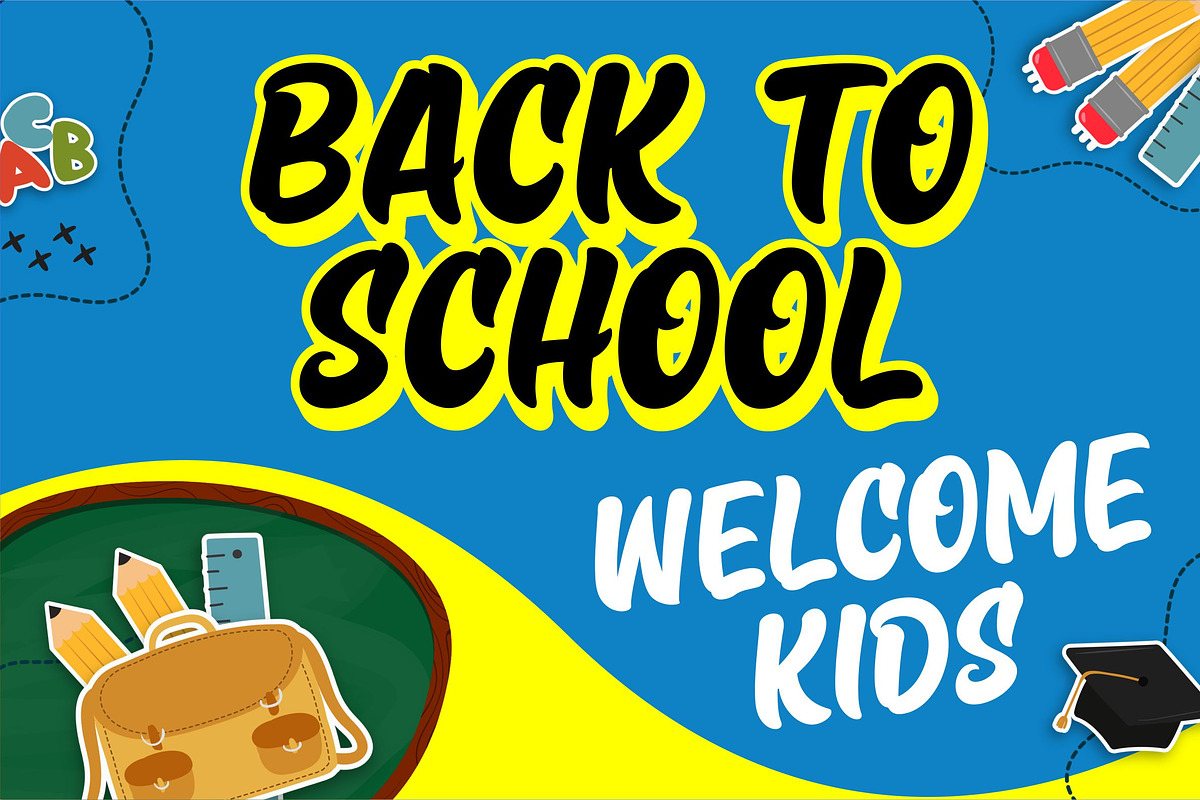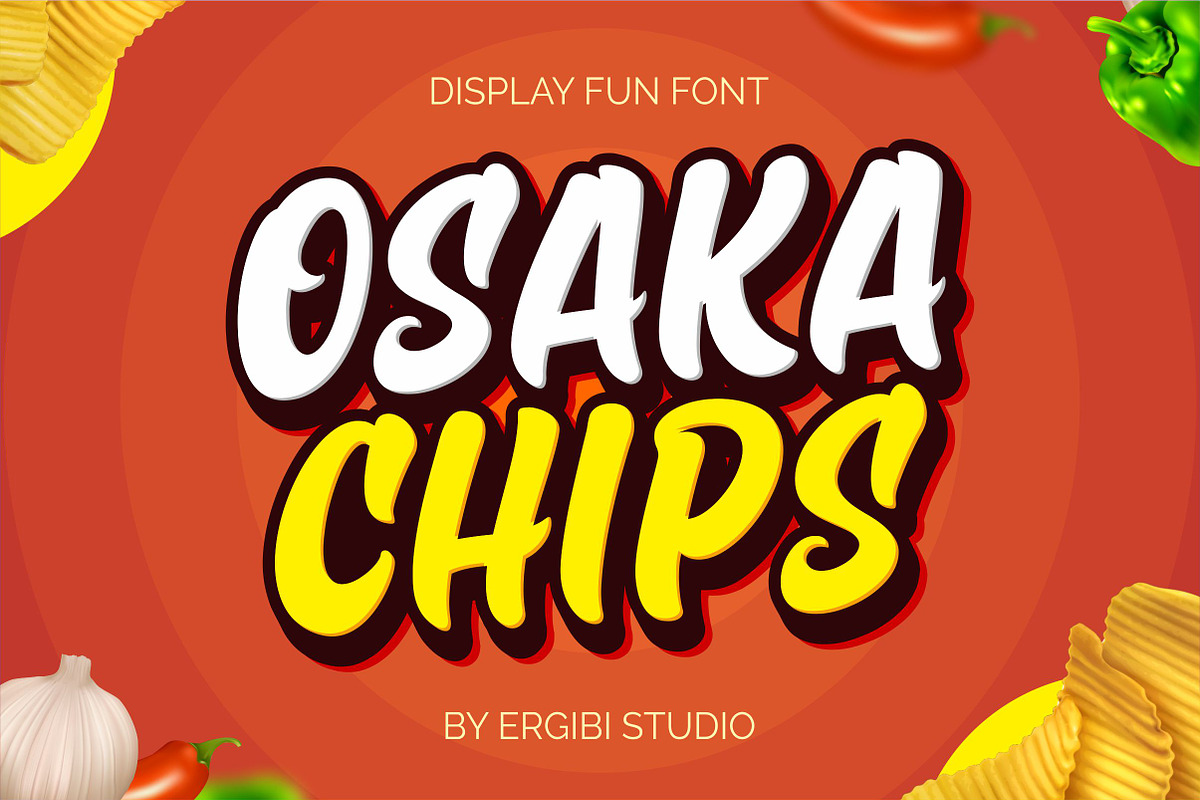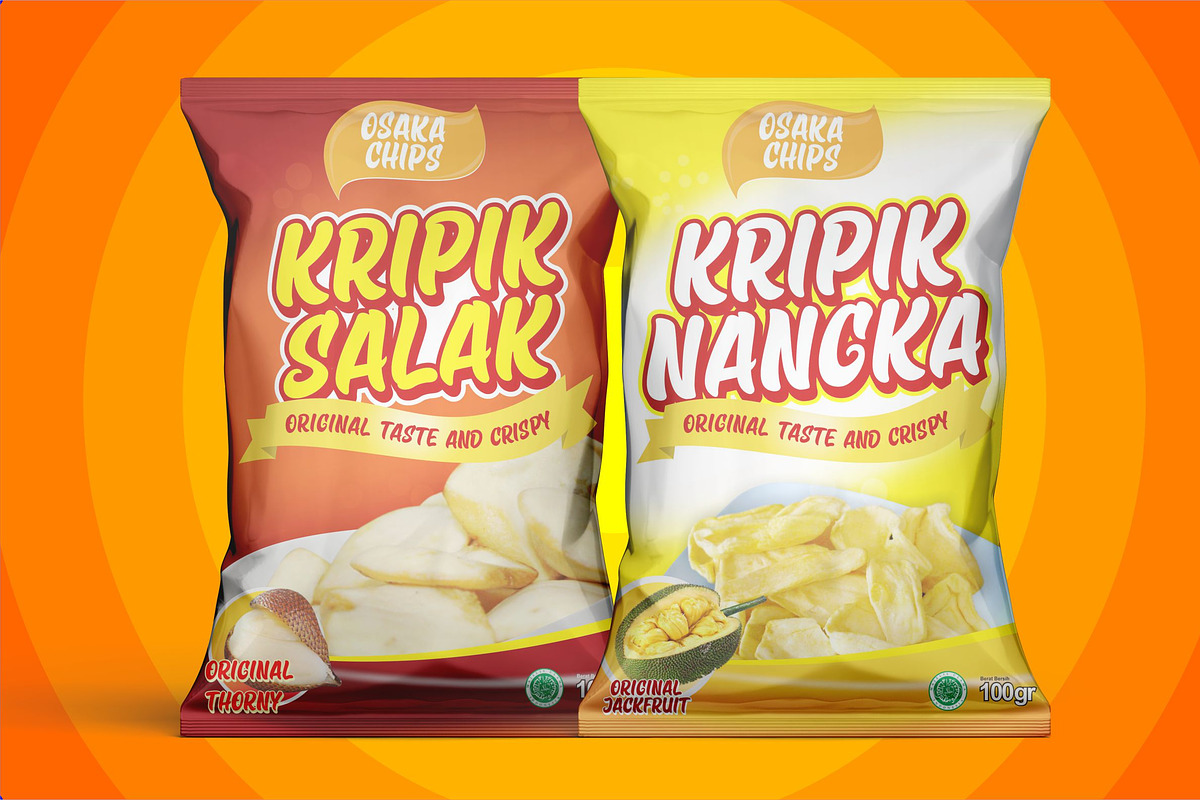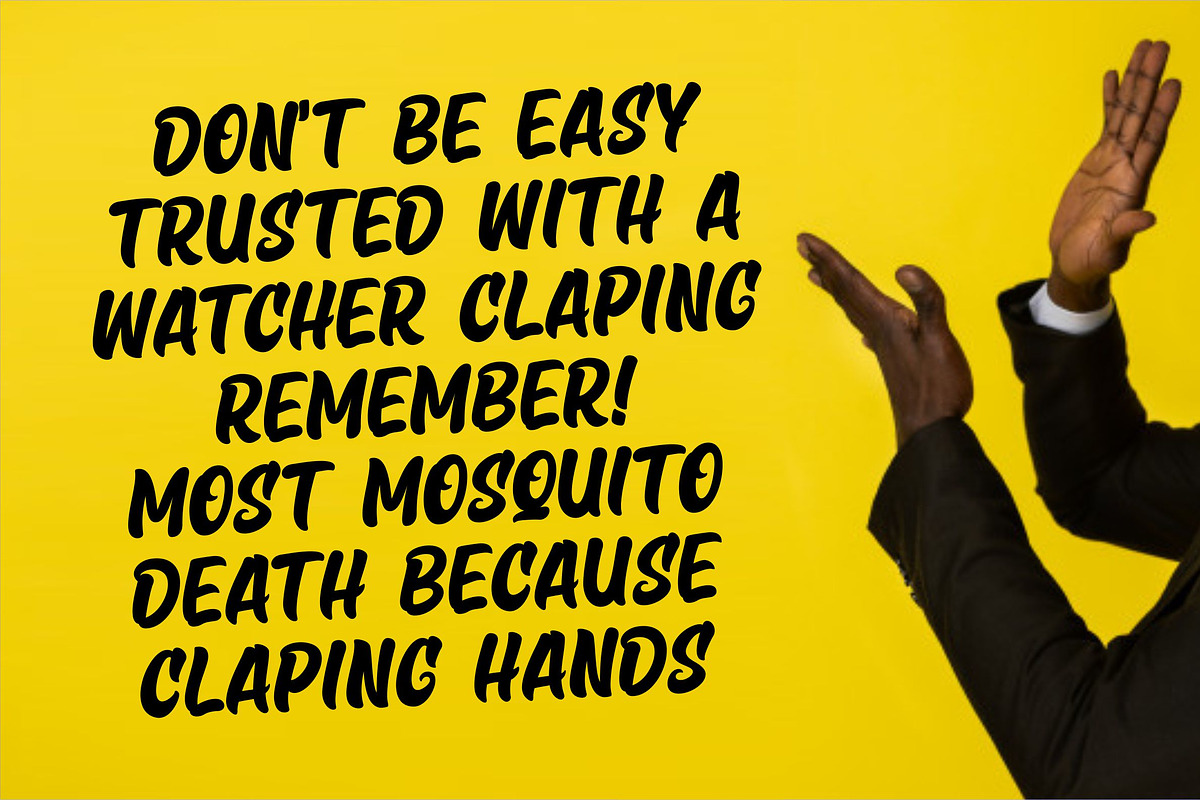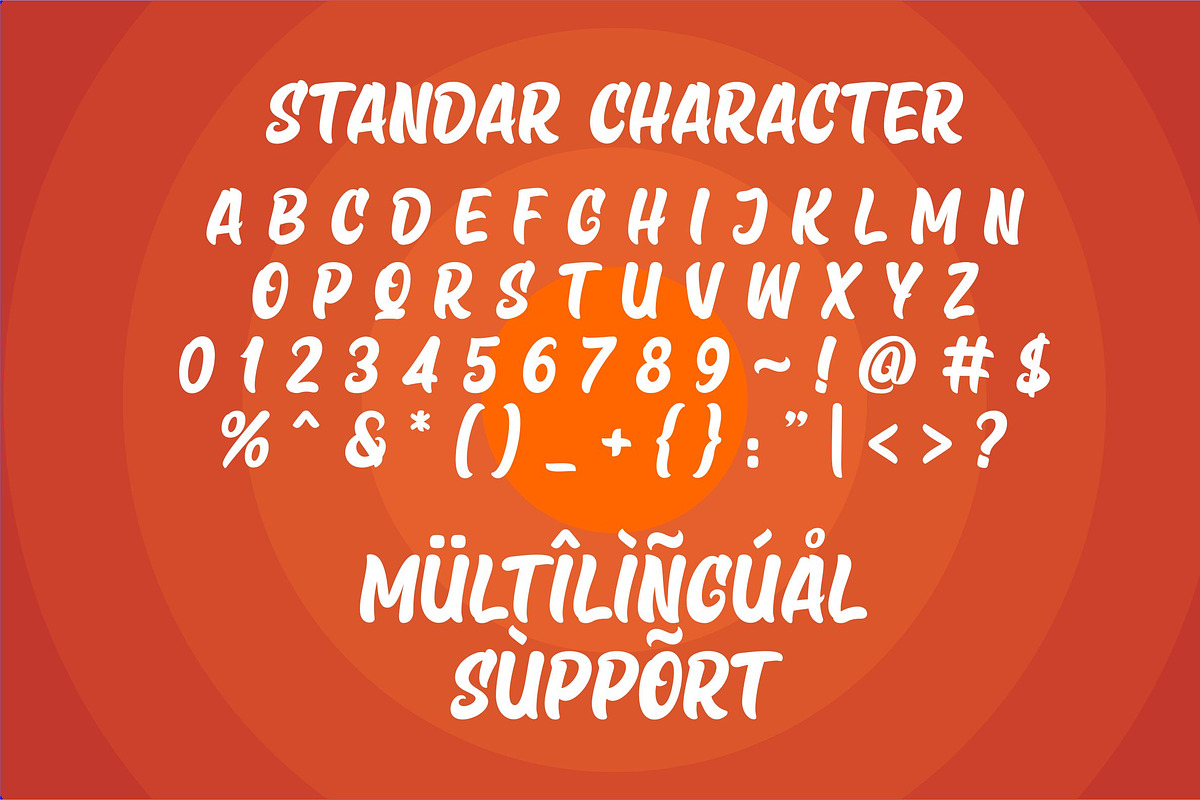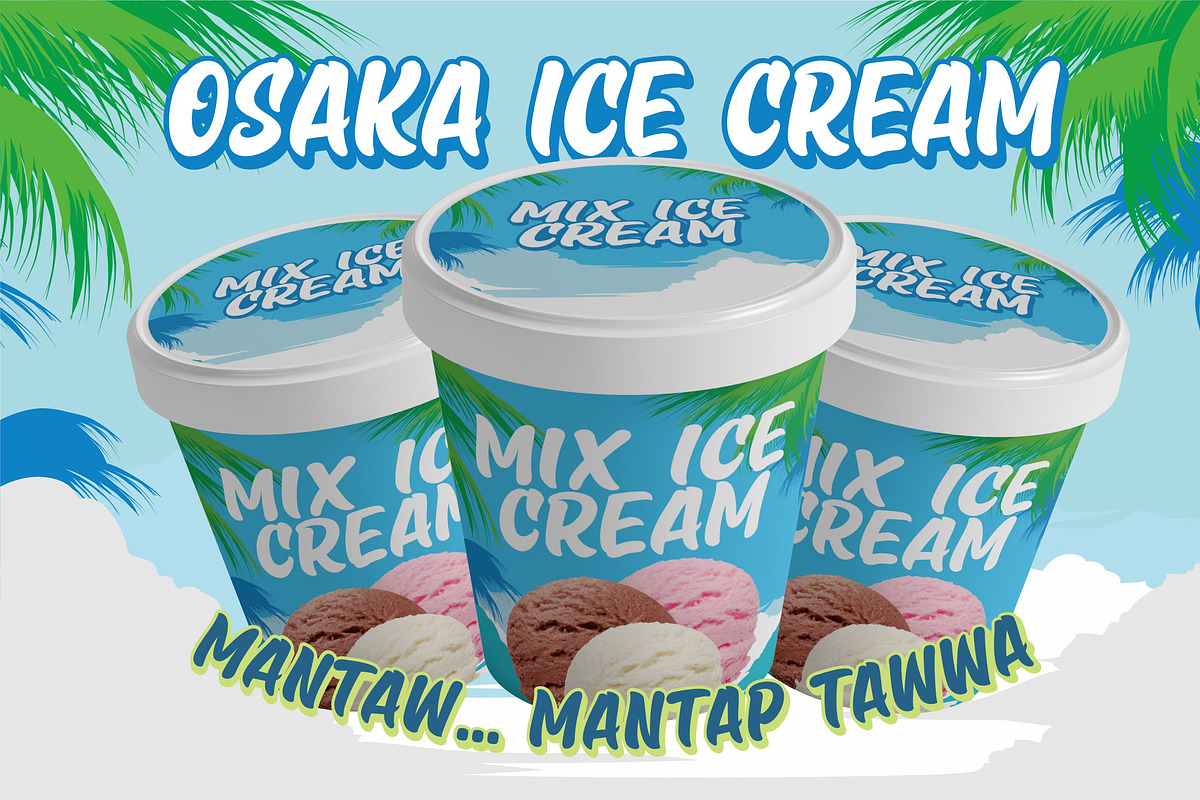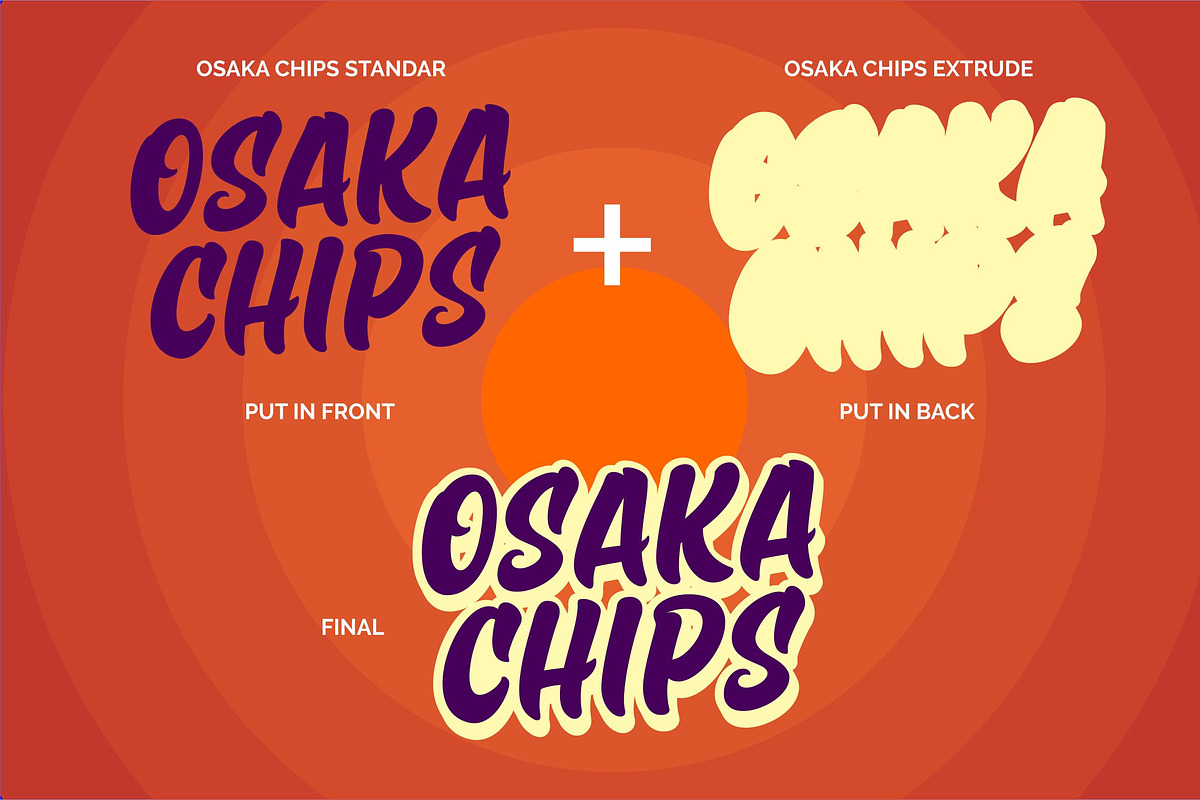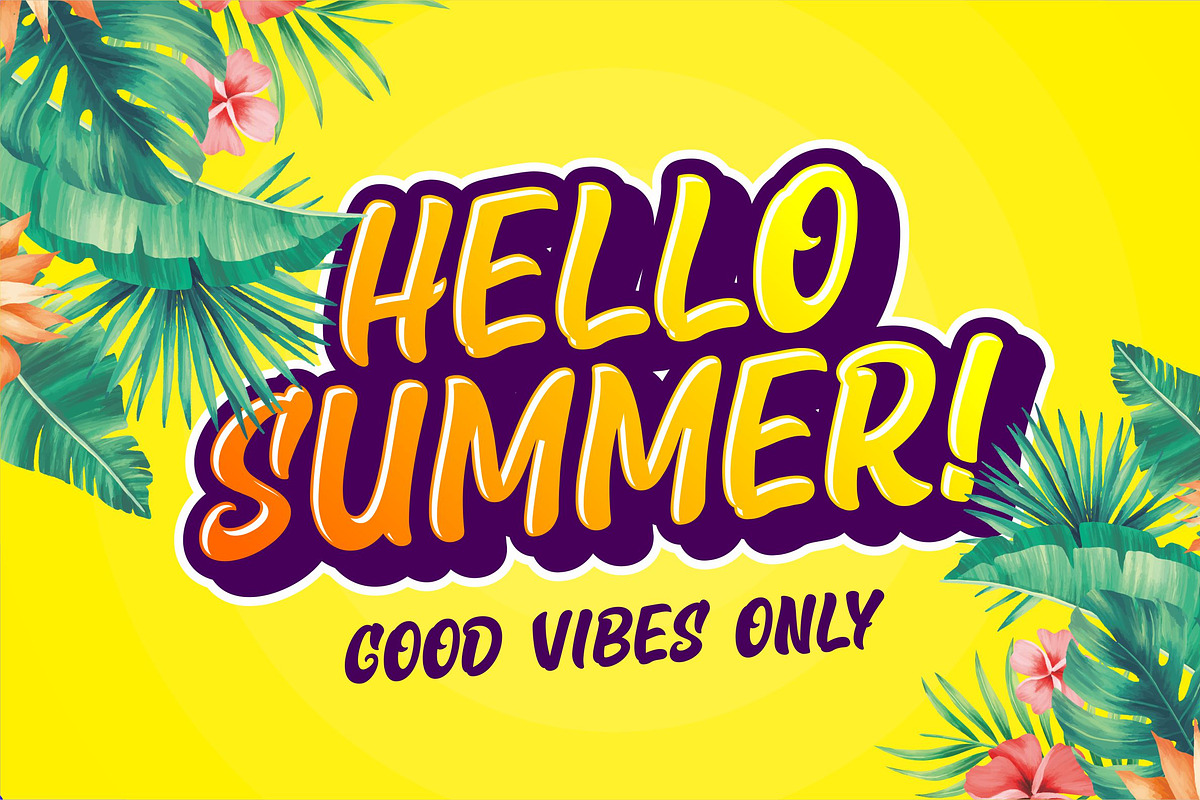
Osaka Chips "Fun Font"
Introducing Osaka Chips, all unique uppercase fonts equipped with extrude effects make this font look more attractive, very suitable in a variety of funny needs, such as chips packaging, snack packaging that looks funny, food packaging, quotes, needs of school children, etc.